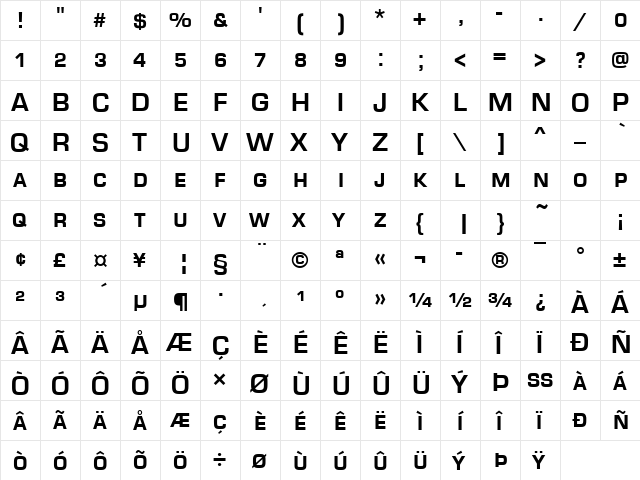
EurostileDCDBol Regular
Design Context for EurostileDCDBol Typeface
EurostileDCDBol takes a measured approach to typography — its balanced proportions and neutral character make it a reliable workhorse for both digital and print work.